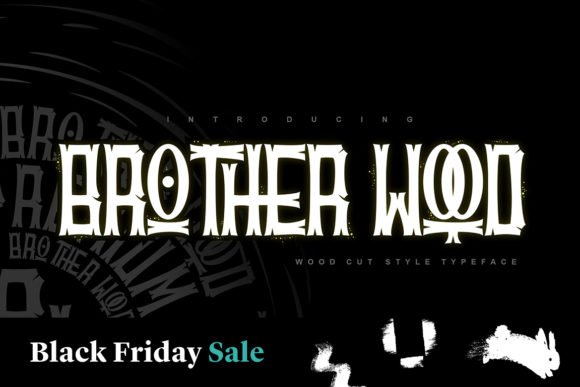
Adding a Touch of Originality to Your Designs
Have you ever been brainstorming a new project, scrolling through fonts, and suddenly, you stumble upon that one font that sparks an idea? For many designers, that moment is a game-changer. It’s the moment when everything falls into place, and your creative vision starts to take shape.
That’s exactly what can happen when you discover the Brother Wood Font. This bold and unique display font is more than just a stylish addition to your designs – it’s a statement piece that can elevate your work and leave a lasting impression. Whether you’re working on a logo, poster, or social media campaign, Brother Wood Font is sure to add tons of original character to your projects.
Brother Wood Font Key Features
- Font Family: Brother Wood Font is a unique, hand-drawn typeface designed to evoke a rustic, wooden feel.
- Character Set: The font includes a wide range of characters, including uppercase and lowercase letters, numerals, punctuation marks, and special characters.
- Unique Characteristics: The font features a distressed, wooden texture and subtle imperfections, giving it a unique and organic feel that sets it apart from other fonts.
Brother Wood Font Review
I recently had the chance to work with Brother Wood Font, and I must say it’s a solid choice for designers looking for a rustic, wood-inspired font.
- The font’s distressed texture and subtle imperfections give it a unique, handmade feel.
- It’s incredibly versatile and can be used for a wide range of designs, from wedding invitations to outdoor signage.
- The font is highly customizable, allowing you to adjust the level of distortion and texture to suit your design needs.
Limitsations ⚠️
- The font may be too rough for designs that require a lot of precision and clarity.
- It can be challenging to read at small font sizes, which may limit its use in body text or fine print.
- The font’s distressed texture may not be suitable for designs that require a clean, minimalist aesthetic.
Overall, Brother Wood Font is a great choice for designers looking for a unique, rustic font that adds character to their designs. While it may have some limitations, its versatility and customizability make it a valuable addition to any design toolbox.
Use the Brother Wood Font to create a rustic, vintage look in your designs.
Pair it with other fonts to create a unique and eye-catching combination.
Experiment with different font sizes and styles to add depth and interest to your design.
Brother Wood Font is ideal for:
Creating invitations and event materials with a rustic, vintage feel.
Designing packaging and branding materials for outdoor and nature-related businesses.
Adding a unique touch to educational and informational materials, such as brochures and pamphlets.
Alternatives to Brother Wood Font
Playfair Display is a high-end, elegant serif font ideal for use in luxury branding, advertising, and editorial content. It’s a great choice when you need to convey sophistication and refinement. Compared to Brother Wood Font, Playfair Display has a more luxurious feel, with intricate flourishes and a wider range of weights.
Great Vibes is a modern script font perfect for use in creative, artistic, and informal applications. It’s a great choice when you need to add a touch of personality and whimsy to your design. Compared to Brother Wood Font, Great Vibes has a more relaxed, casual feel, with a softer and more expressive character.
Carolyna Pro is a elegant, modern script font ideal for use in high-end branding, packaging, and editorial content. It’s a great choice when you need to convey sophistication and elegance. Compared to Brother Wood Font, Carolyna Pro has a more refined, high-end feel, with a wider range of weights and styles.